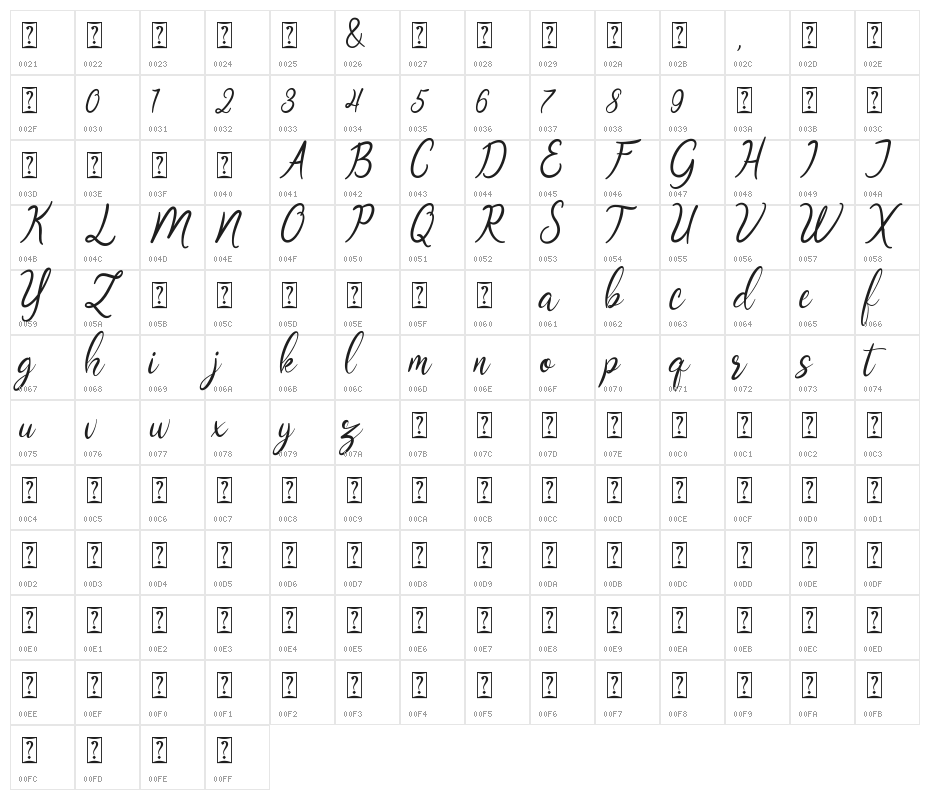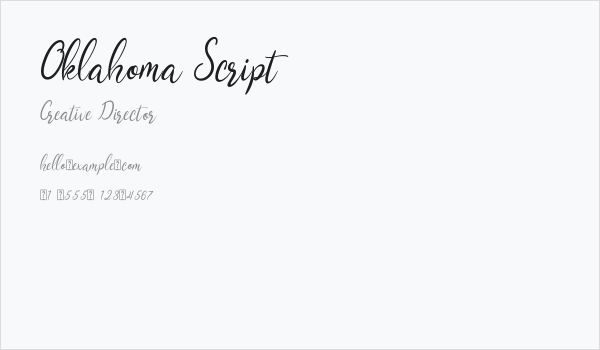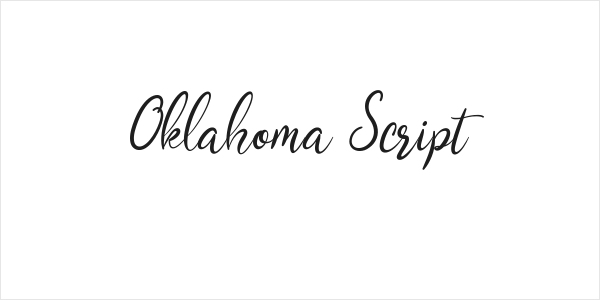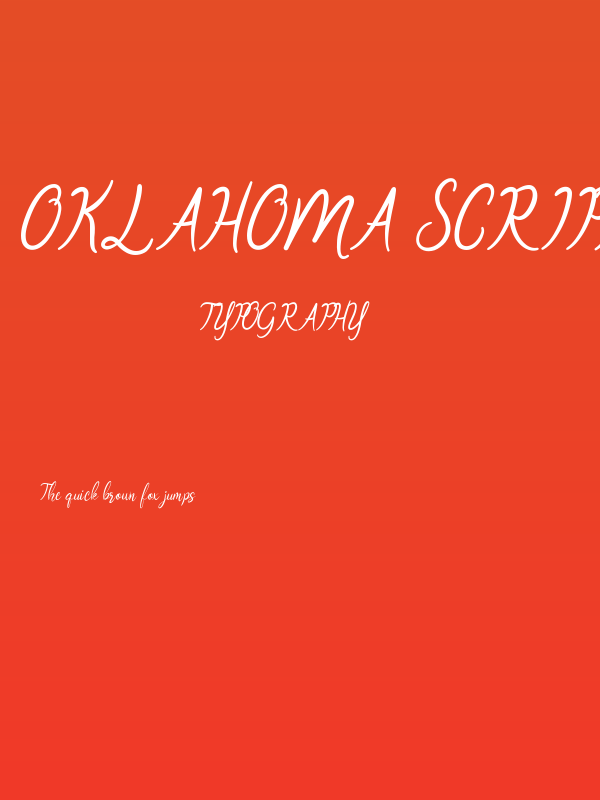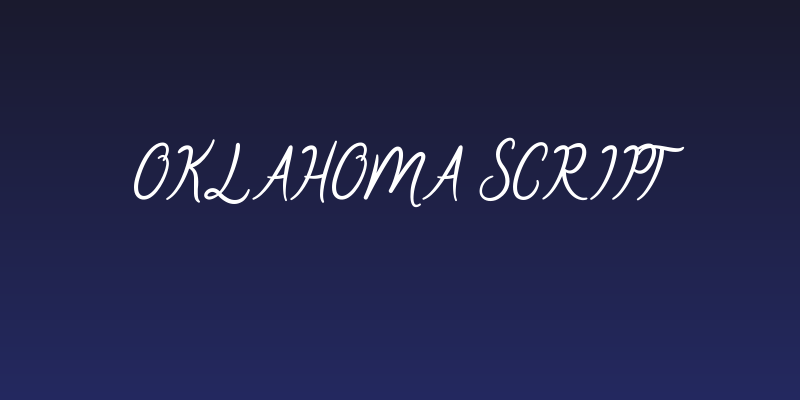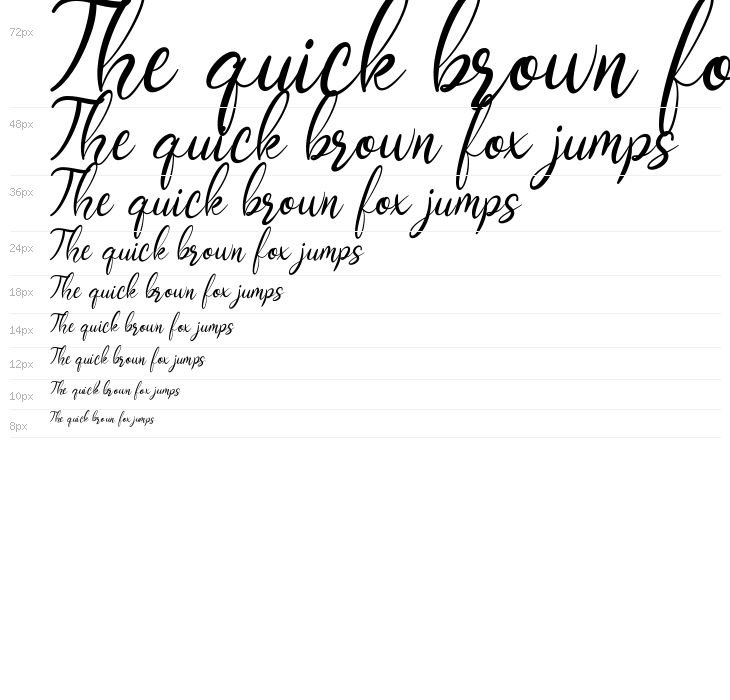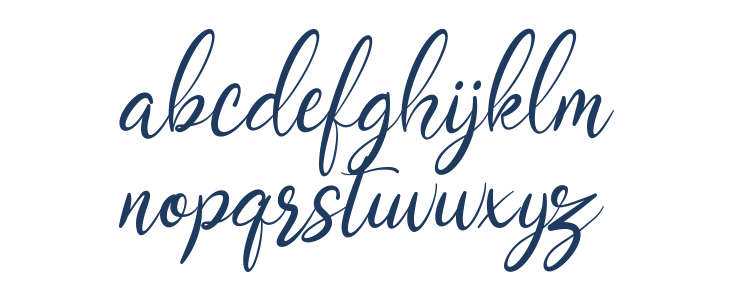
Oklahoma Script Font
Oklahoma Script Description
This font exudes elegance and fluidity, characterized by its cursive script style. The letters are interconnected, creating a seamless flow that mimics natural handwriting. Each character is crafted with a graceful curve, giving it a sophisticated and artistic appearance. The uppercase letters are bold and prominent, while the lowercase letters maintain a delicate balance with their slender strokes. The numerals are consistent with the overall style, featuring smooth curves and a slight slant. Special characters are designed with the same attention to detail, ensuring they blend harmoniously with the rest of the font. This script font is perfect for adding a touch of class and personality to any design project.
Overall StyleElegant
Use CaseLogos, Invitations, Personal stationery
Proposed ProjectsIdeal for wedding invitations, elegant branding, personal stationery, and artistic projects.